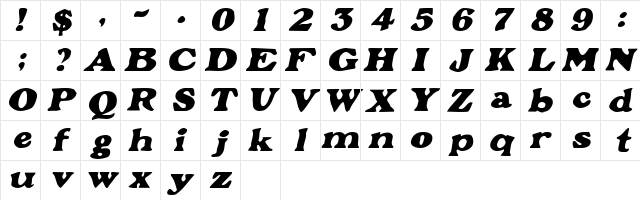
Grant Oblique
Design Context for Grant Typeface
Grant takes a measured approach to typography — its balanced proportions and neutral character make it a reliable workhorse for both digital and print work. The dynamic lean of this cut emphasises speed and emphasis in any layout.
Pro Tip: Use Grant for emphasis, pull quotes, and subheadings where its slanted energy can add rhythm to the layout.